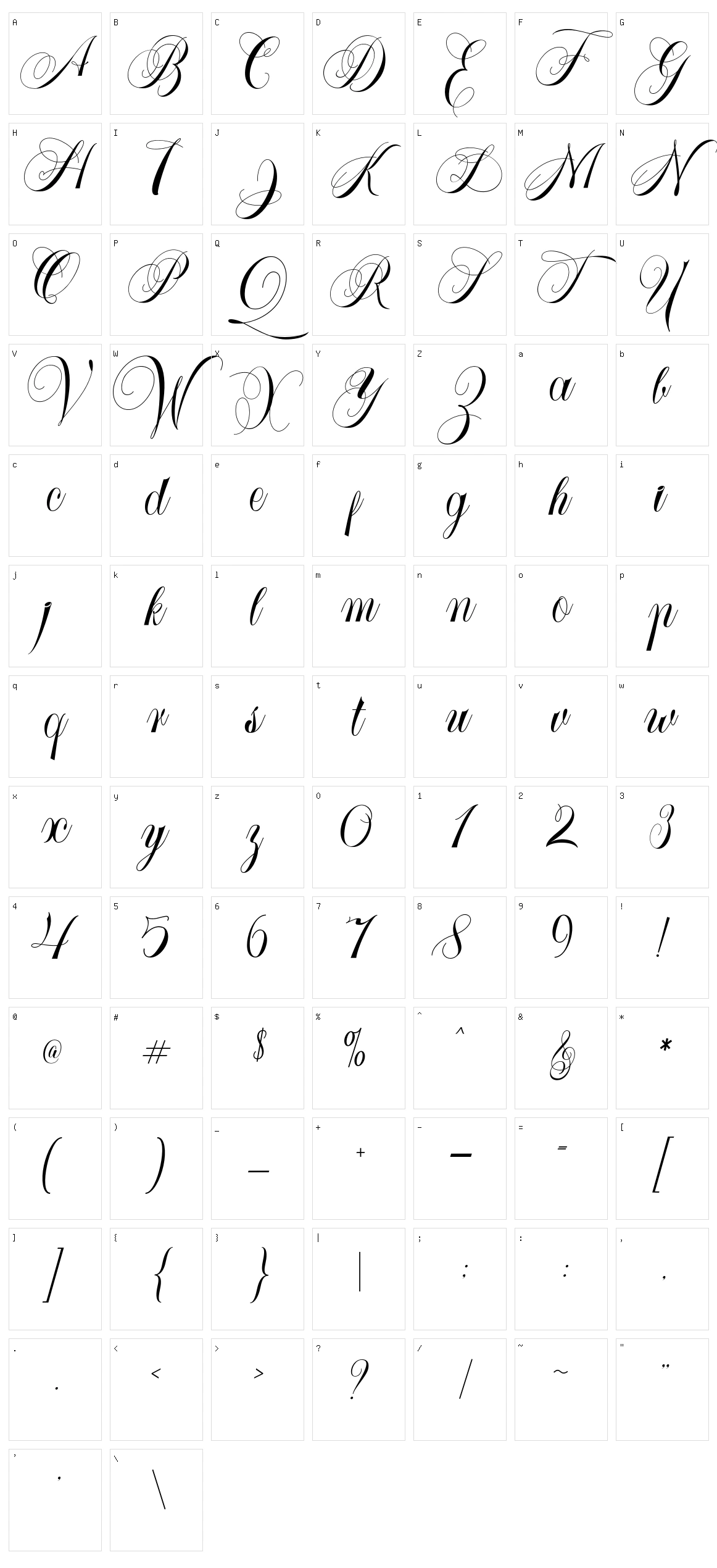
This demo version available:
- Uppercase
- Lowercase
- Number
full version feature:
- Ligature
- Discretionary Ligature
- Stylistic Alternate
And support multilingual